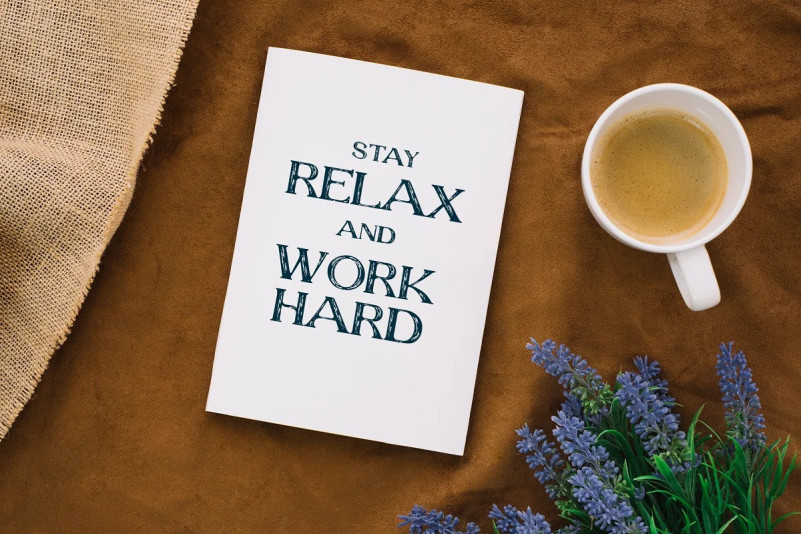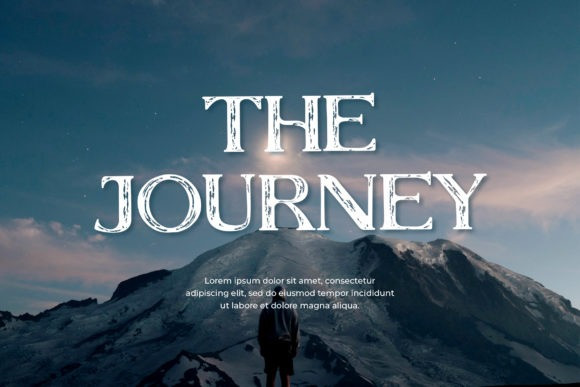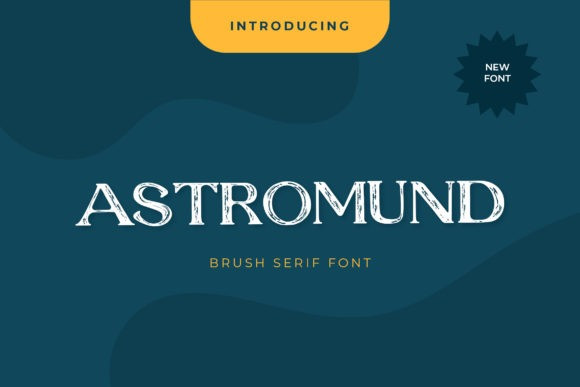
Astromund Font
Astromund Font is a stylish and bold display font. It is characterized by a cool touch and is perfect for fashion branding or editorial designs. Add it confidently to your projects, and you will love the results.